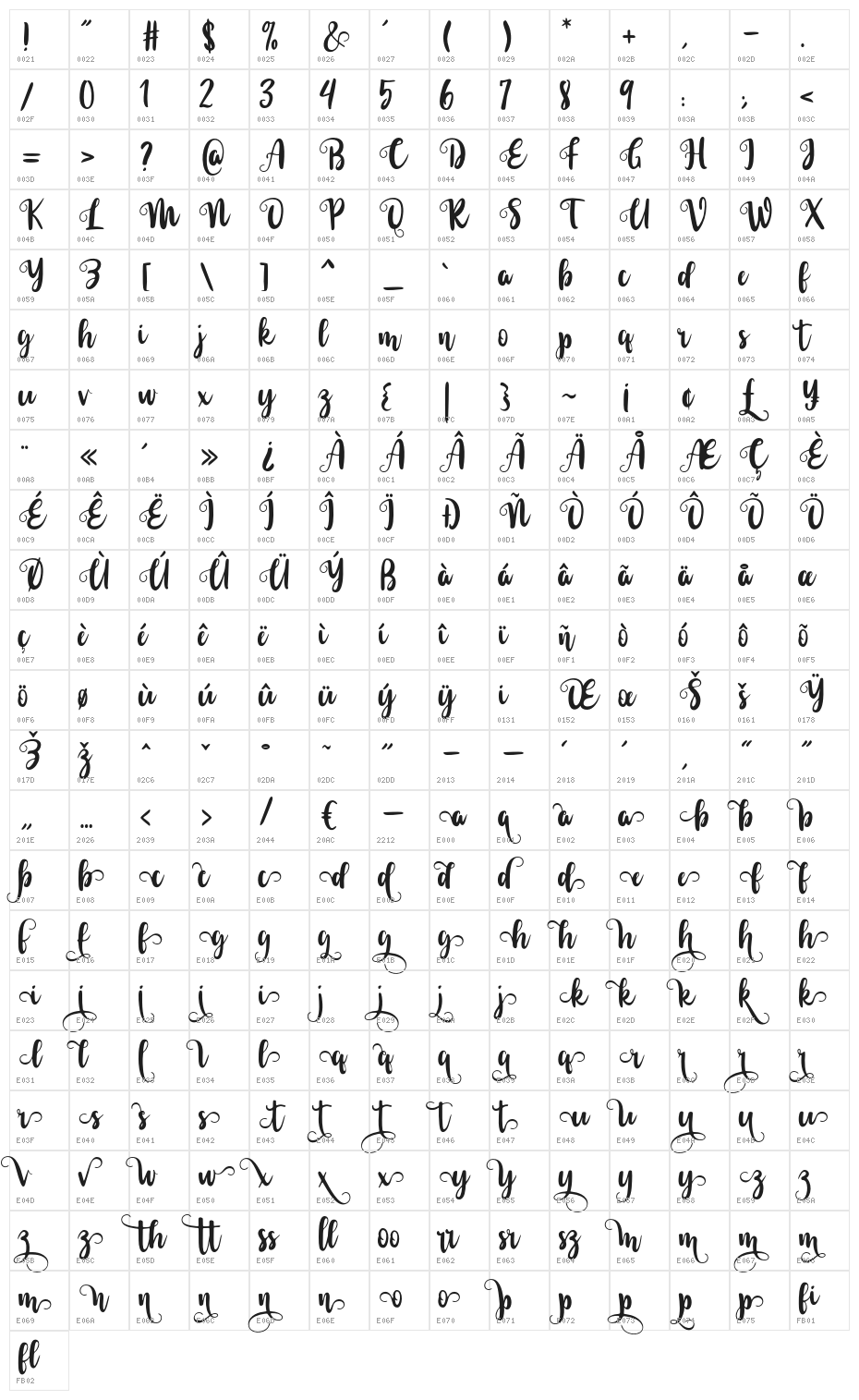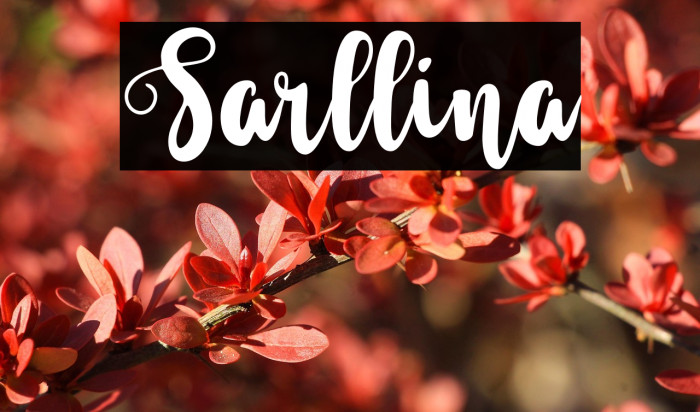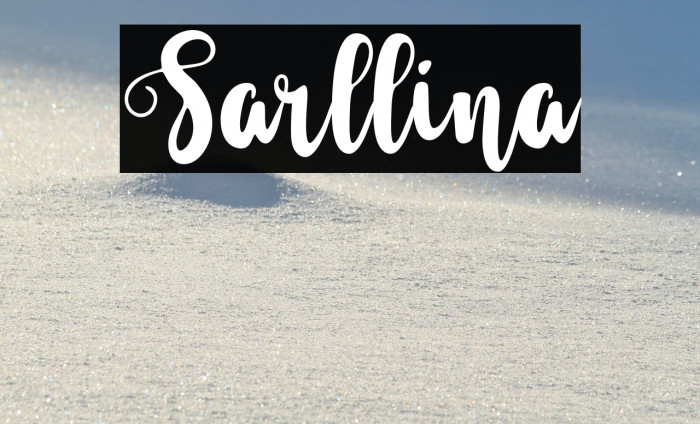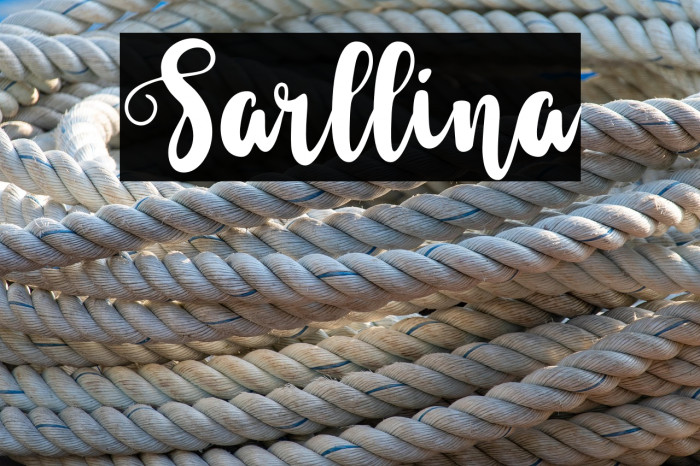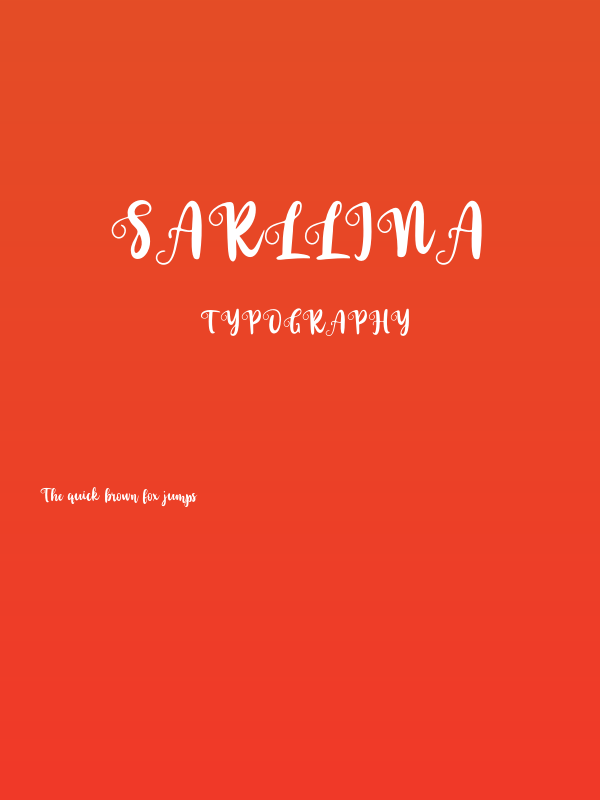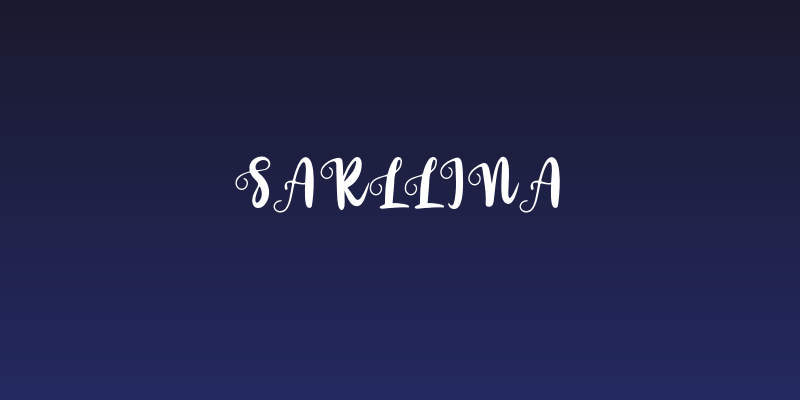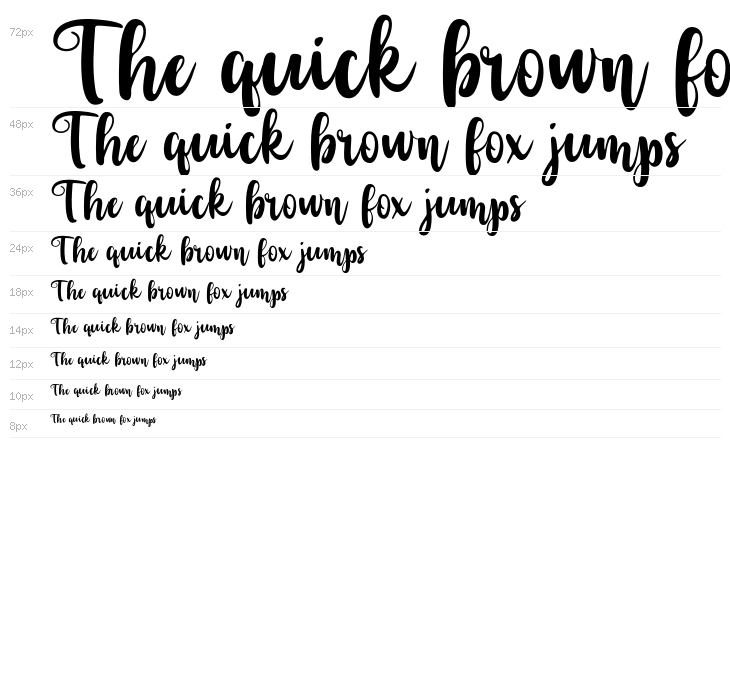
Sarllina Font
Sarllina Description
This font features a playful and elegant script style with a hand-drawn appearance. The uppercase letters are adorned with delicate swirls and loops, adding a whimsical touch. The lowercase letters maintain a consistent flow, with thick and thin strokes that create a dynamic contrast. Numbers are bold and slightly elongated, complementing the overall style. Special characters are creatively integrated, maintaining the font's decorative flair. This font is ideal for projects that require a personal and artistic touch, such as invitations, greeting cards, and branding materials.
| Proposed Projects | Ideal for invitations, greeting cards, branding, and artistic projects. |